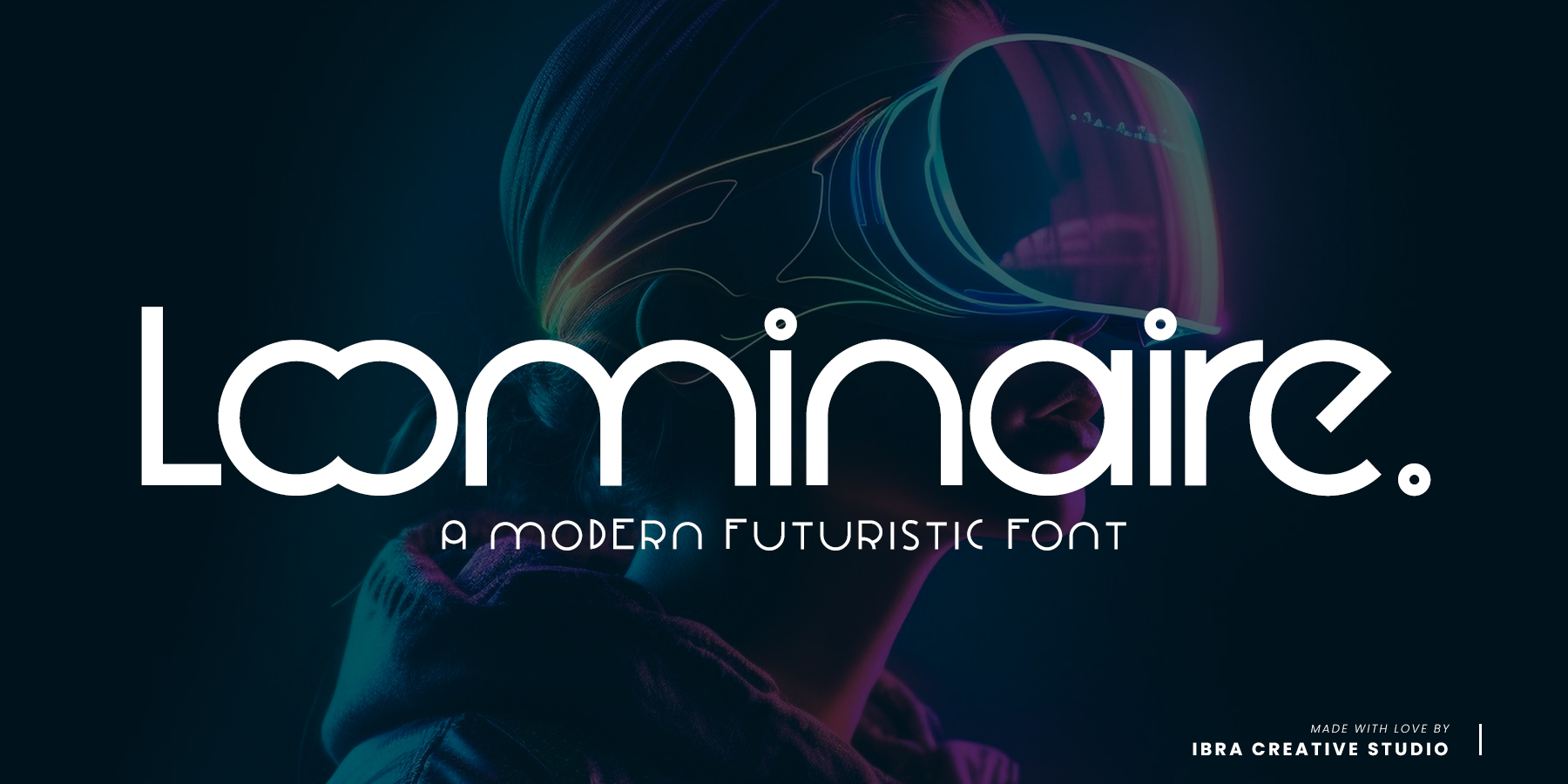
Looking for a refined and graceful typeface that adds elegance and personality to your projects? Loominaire Font Free Download is perfect for invitations, branding, editorial design, and luxury packaging that require a sophisticated and timeless look. Its delicate curves and unique letterforms give your typography a distinctive charm.
Whether you’re designing logos, wedding invitations, or premium product labels, Loominaire Font Free Download adds a touch of refinement and exclusivity.